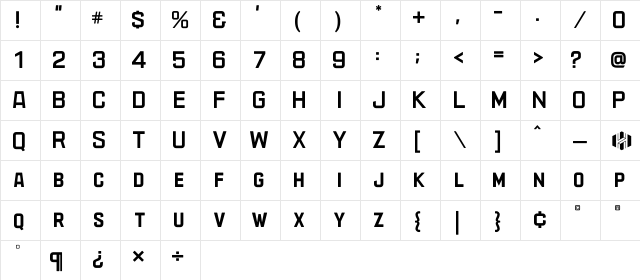
AzureoN Regular Free Font
AzureoN Regular
Designer: Hareesh Seela
Design Context for AzureoN
AzureoN is a composed and adaptable typeface that performs quietly and consistently across a wide range of design contexts.